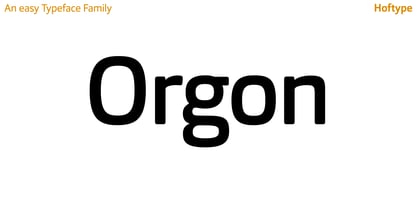
Orgon
by Hoftype
About Orgon Font Family
Orgon, a new linear typeface family, fresh and easy but with a warm touch. It appears uncomplicated, unpretentious, but still distinctive. Its quiet text flow allows smooth reading even for longer texts. The Orgon family comprises 16 styles and is well suited for ambitious typography. It comes in OpenType format with extended language support. All weights contain ligatures, small caps, superior characters, proportional lining figures, tabular lining figures, proportional old style figures, lining old style figures, matching currency symbols, fraction- and scientific numerals and matching arrows.
Designers: Dieter Hofrichter
Publisher: Hoftype
Foundry: Hoftype
Design Owner: Hoftype
About Hoftype
German designer Dieter Hofrichter started his foundry in 2010. Since then, he has remained focused on developing text fonts that integrate the rich history and tradition of typography with contemporary styles. Based in Munich, his first typeface on MyFonts was Impara, a sans serif with lively stroke ductus and distinct humanistic characteristics that is a representation of linear coolness and classic elegance. Since his debut, he has continued to produce beautiful, high quality serif faces. Capita, one of the foundry’s best sellers, is a self-dominated face with a fresh style that avoids the harshness of many slab serifs. Dieter has also seen success with one of his most recent designs, Mangan, a text face that combines classical rationality with contemporary design. “One of our intentions is to utilize the knowledge of the history of type to create contemporary types,” Dieter says. “Style consciousness and many years of experience in type design are our qualifications for producing functional and usable types of high quality.”